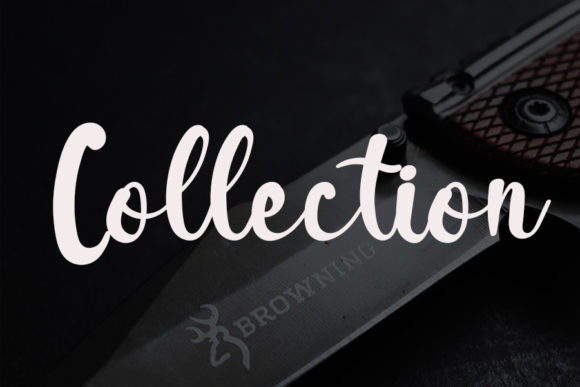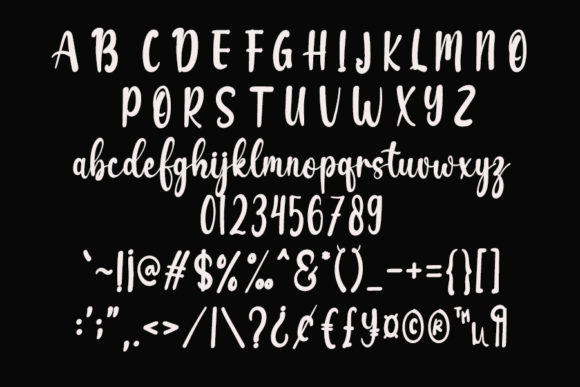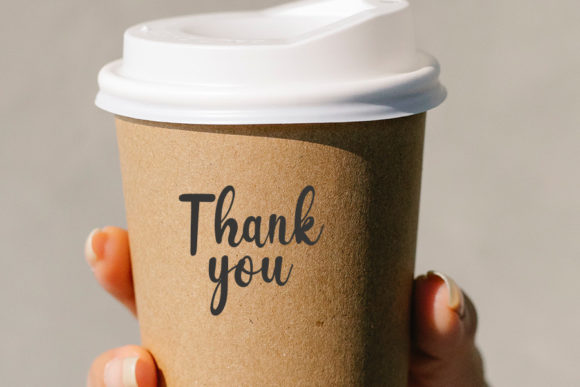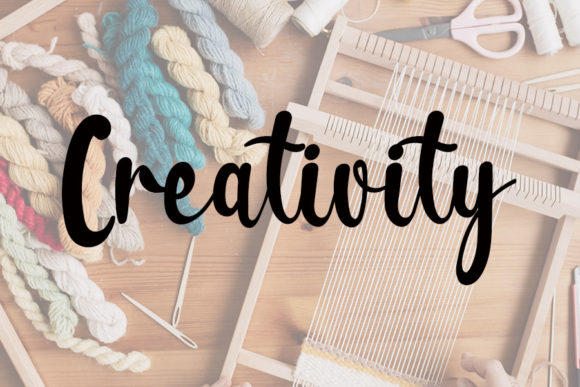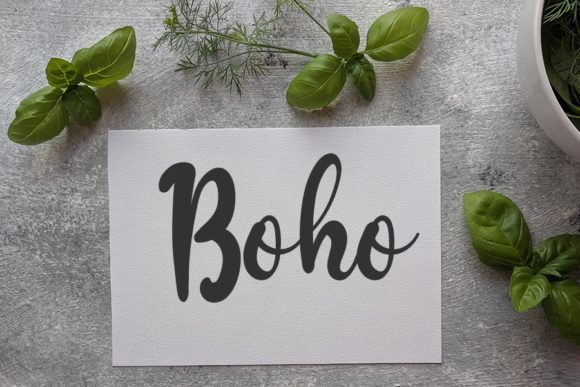
**Signature** is not just a font; it’s a cool handwritten script that embodies a modern vibe while maintaining a spotless and balanced form, drawing inspiration from classic calligraphy. Designed with a perfect balance between thin and thick strokes, this font is crafted to elevate the beauty of your projects.
Envision using **Signature** across various applications where its modern, yet classic calligraphy-inspired style enhances the visual appeal. The cool handwritten script ensures your text is not only readable but also carries a sense of sophistication and contemporary charm.
For branding projects, **Signature** becomes a stylish choice, blending modernity with a timeless charm. The font’s balanced and varied form ensures that your brand identity exudes uniqueness and elegance.
In printed materials like invitations or cards, **Signature** stands out, bringing a spotless and elegant touch to the text. Its modern vibe ensures that your messages are conveyed with a touch of contemporary flair.
Whether utilized for digital or print designs, **Signature** adds a level of versatility and beauty. Its design, inspired by classic calligraphy, offers a refined and balanced aesthetic, enhancing the overall visual experience.
Let **Signature** be your preferred font when you desire a cool handwritten script that seamlessly combines modernity with the timeless beauty of classic calligraphy. Its spotless form and varied strokes make it a versatile and stylish addition to your design toolkit.